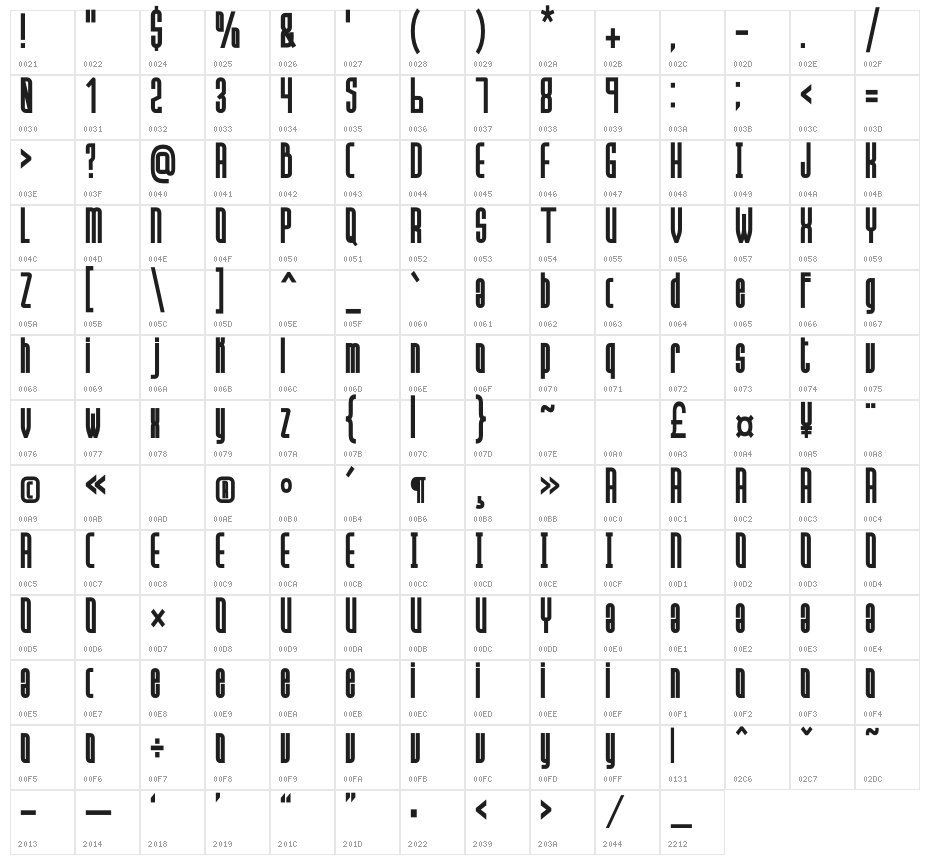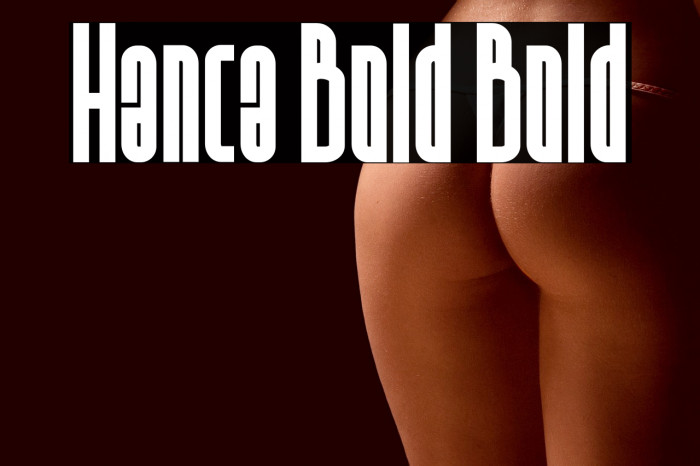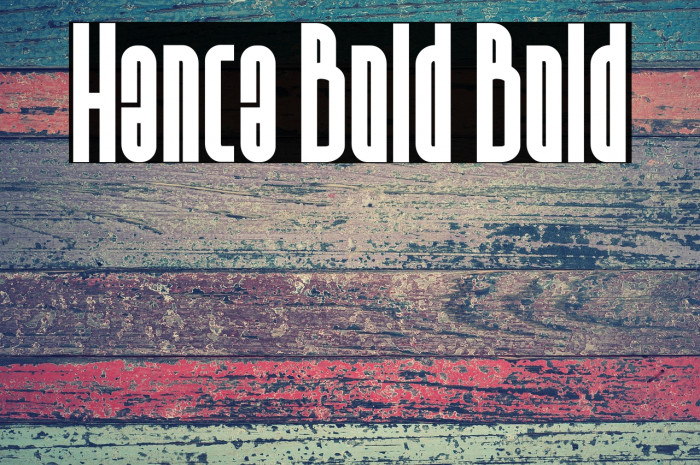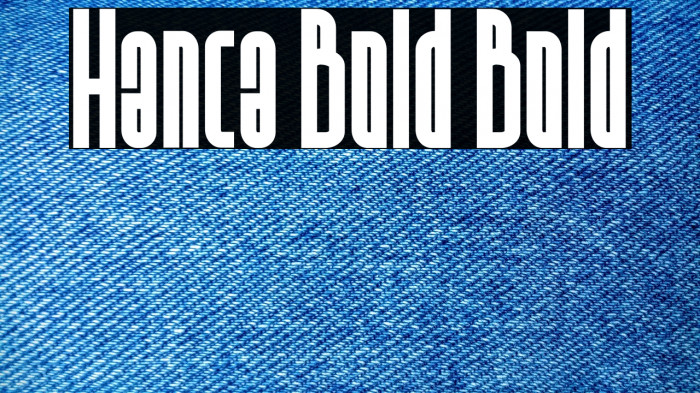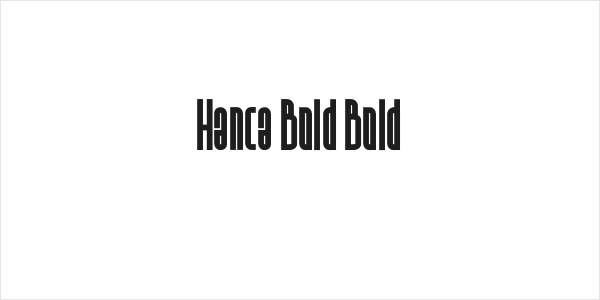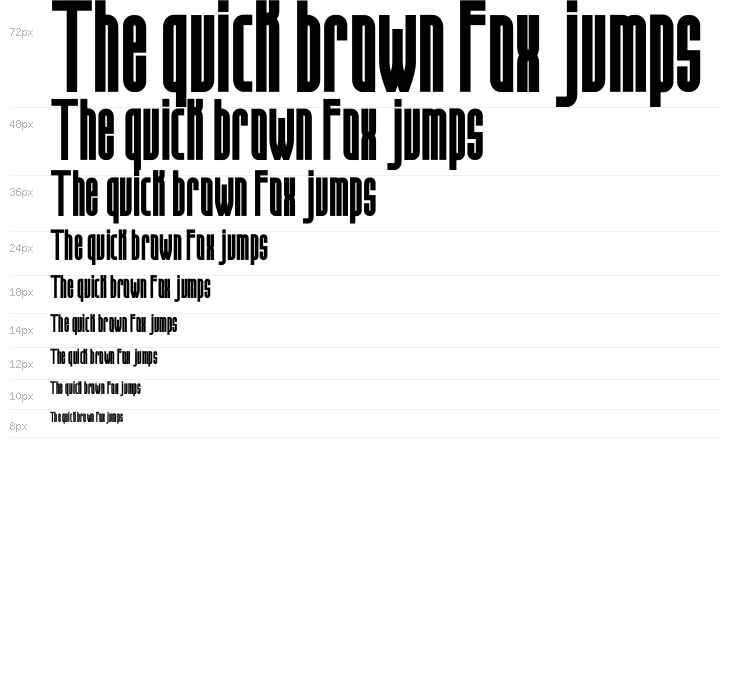
Hanca Bold Bold Font
Hanca Bold Bold Description
This font exhibits a bold and striking appearance with elongated, narrow characters that create a strong visual impact. The uppercase letters are tall and imposing, while the lowercase letters maintain a consistent height, contributing to a cohesive look. The numerals and special characters share the same boldness, ensuring uniformity across all elements. The overall design is modern and assertive, making it suitable for projects that require a commanding presence. The font's geometric structure and clean lines enhance its readability despite its condensed form.